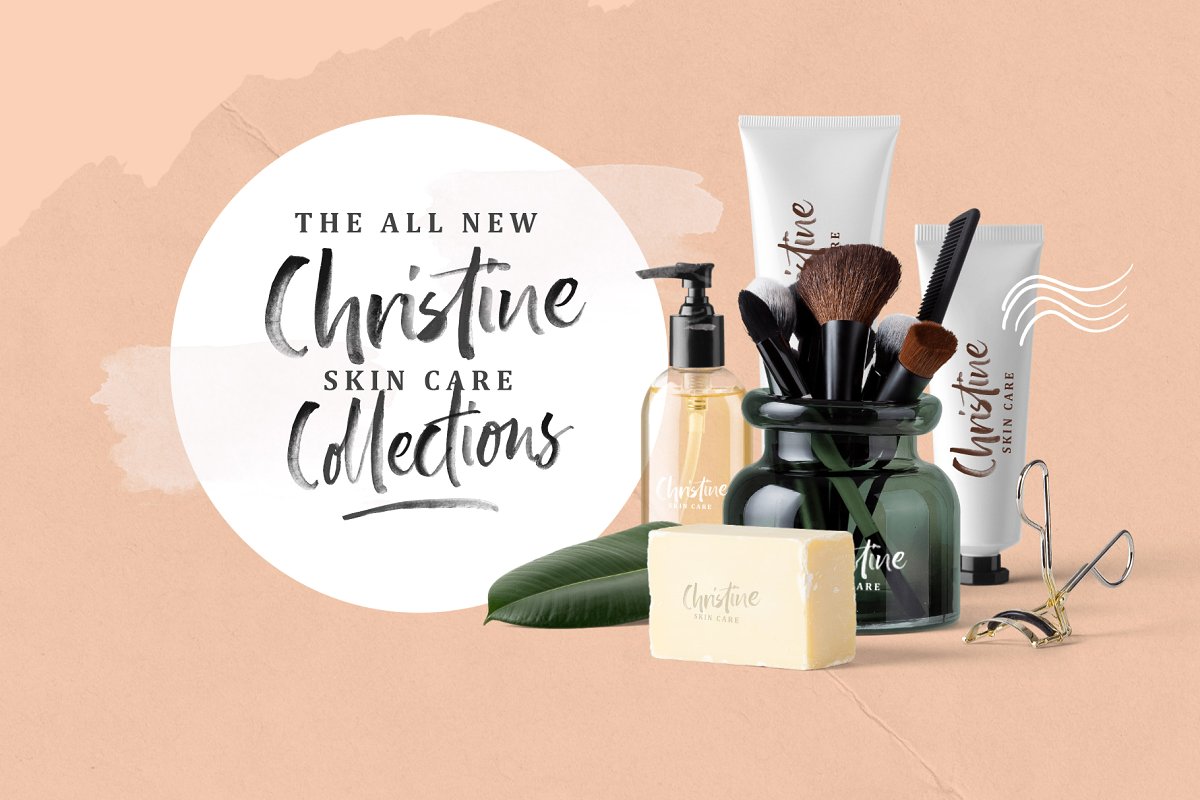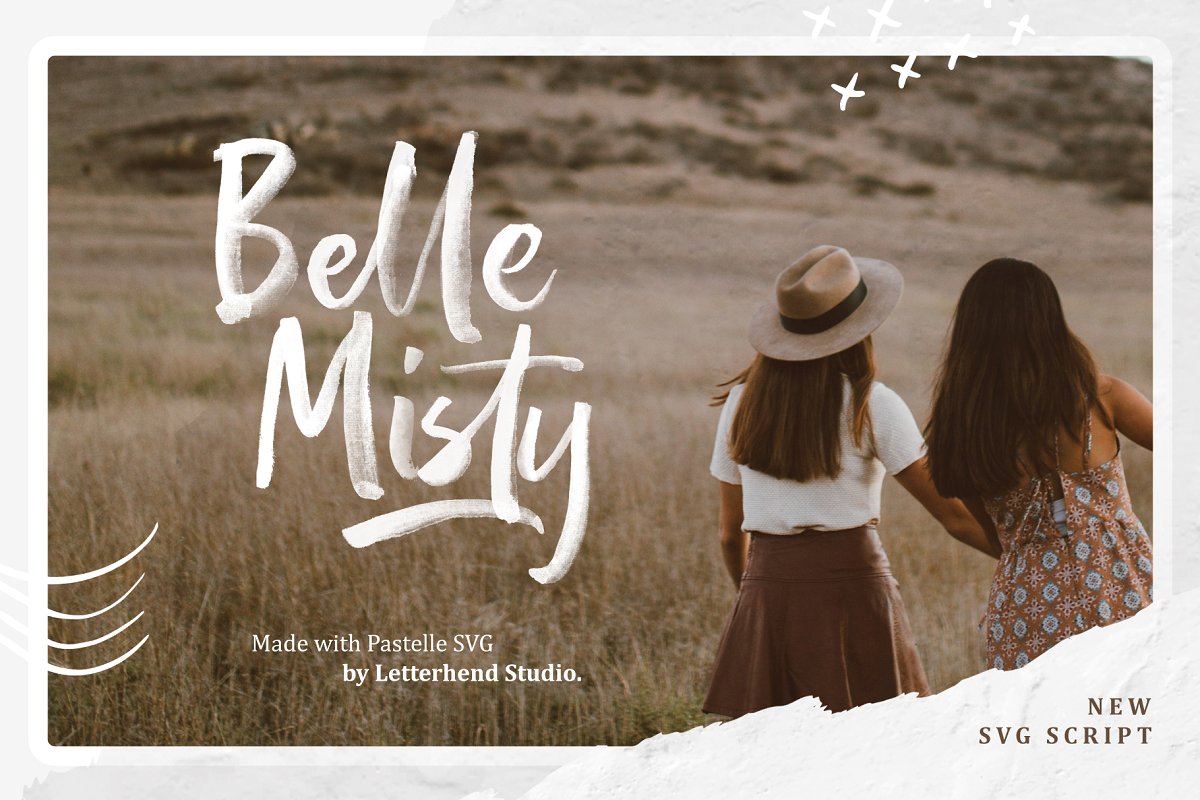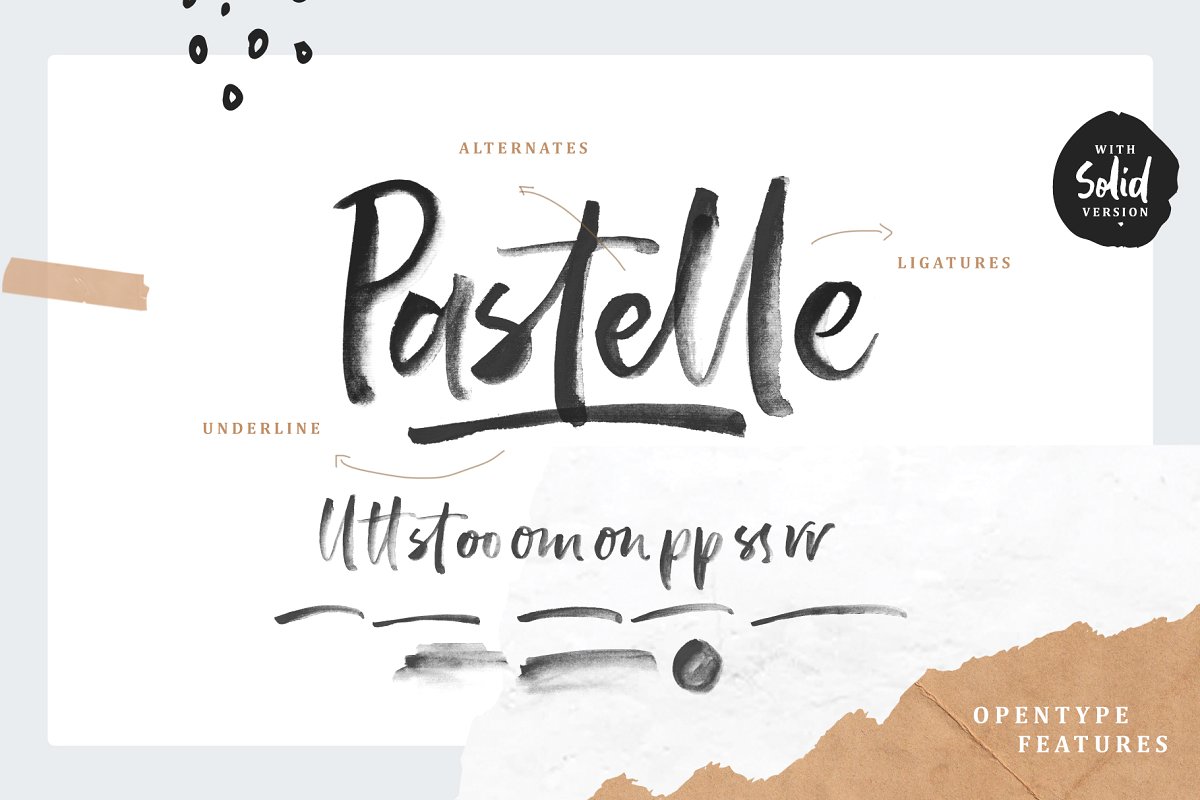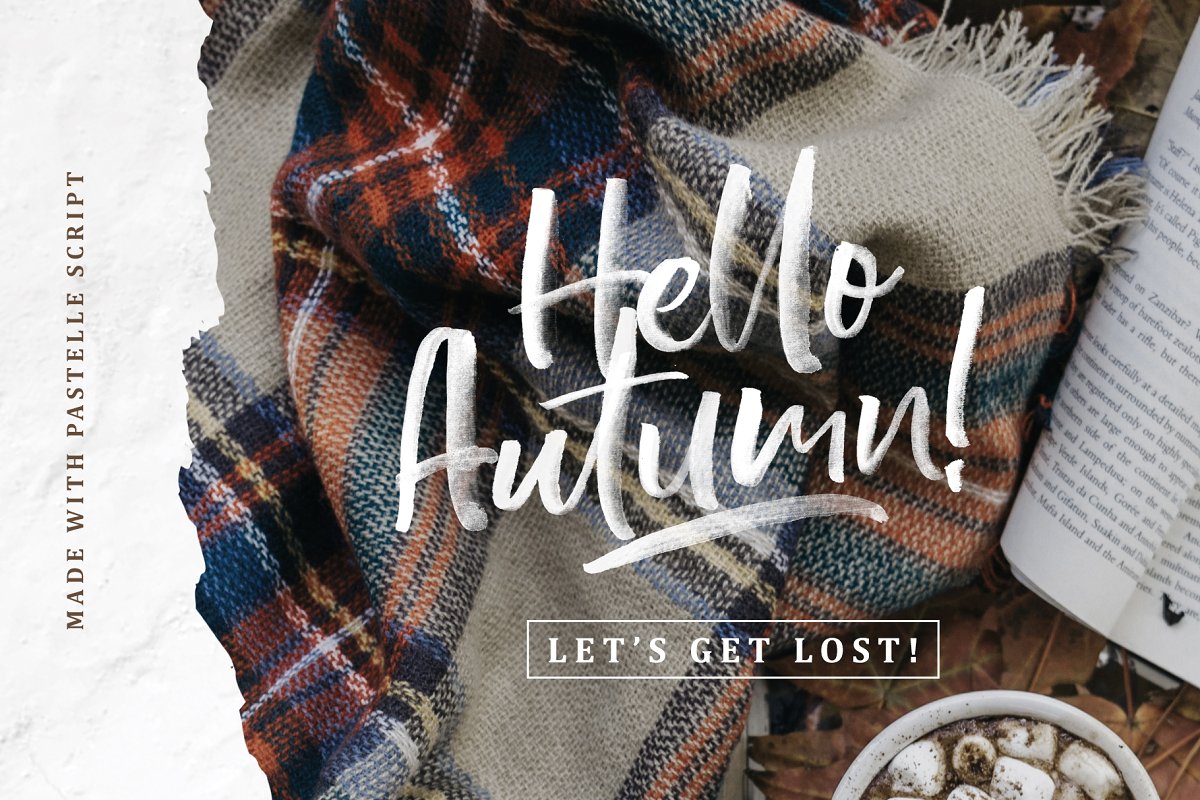
Pastelle Brush Font
Pastelle Brush Font – SVG font
Hello world..!! Introducing Pastelle SVG font. Pastelle is a A Display Typeface Family which is suitable for you who needs a typeface for headline, logotype, apparel, invitation, branding, packaging, advertising etc.